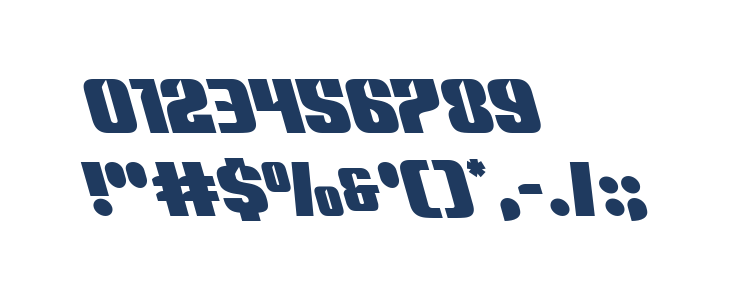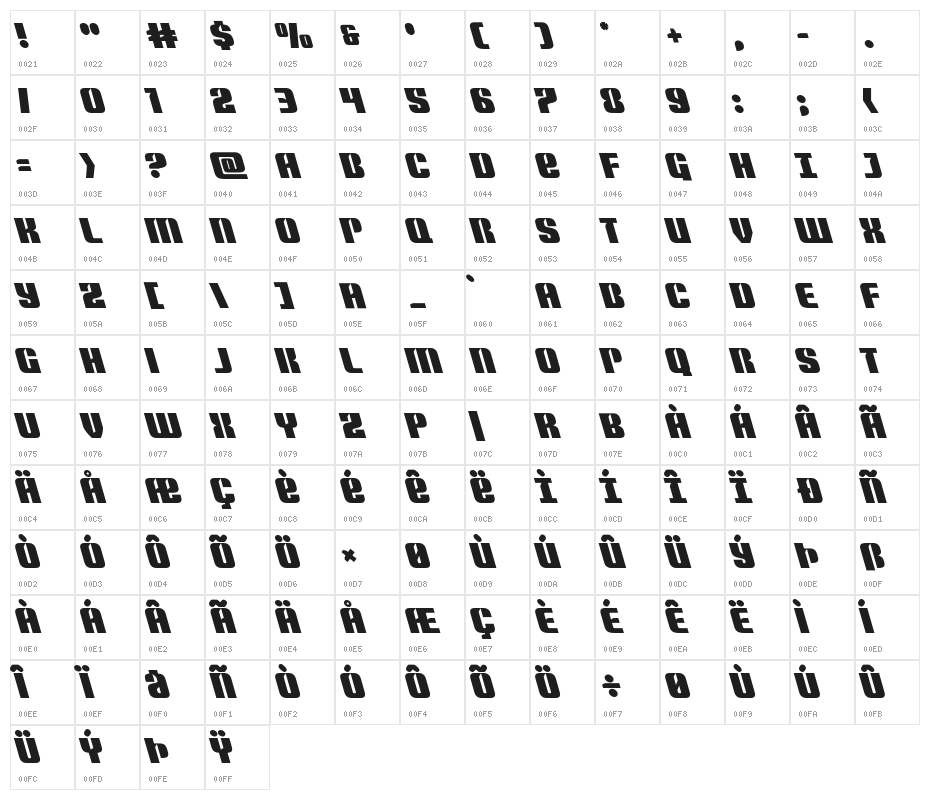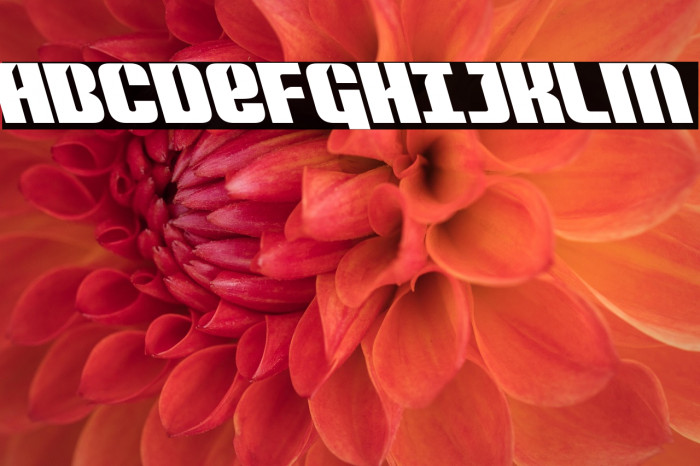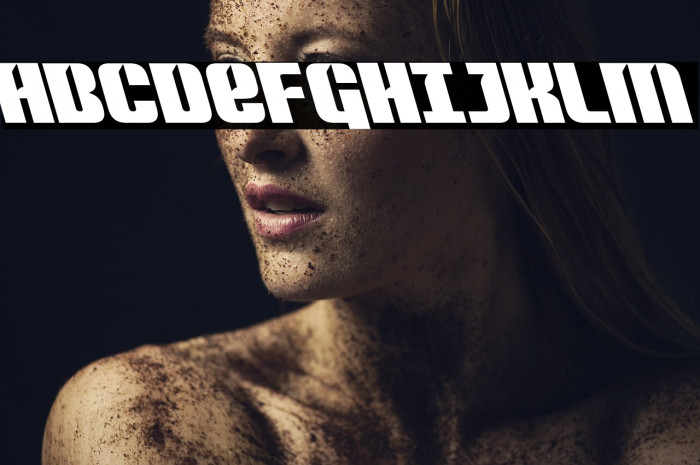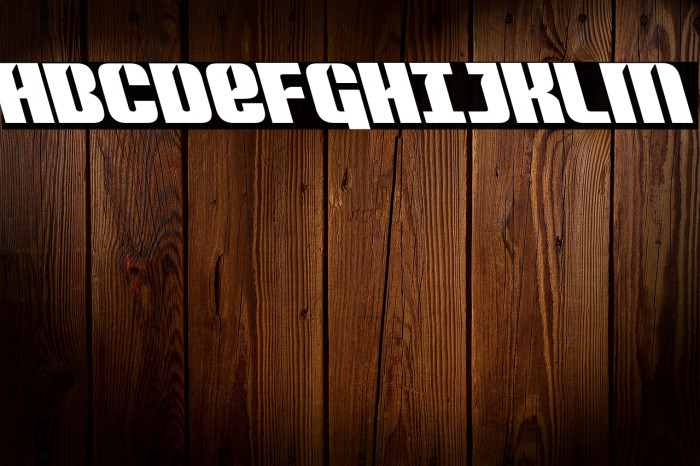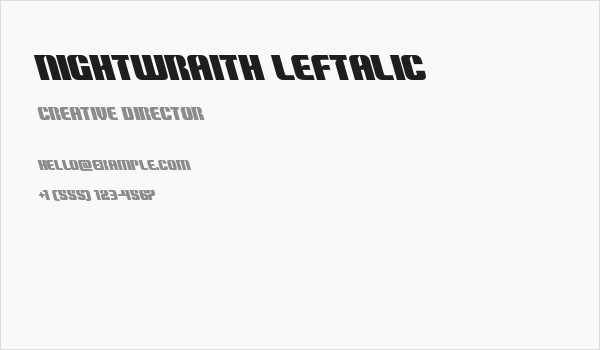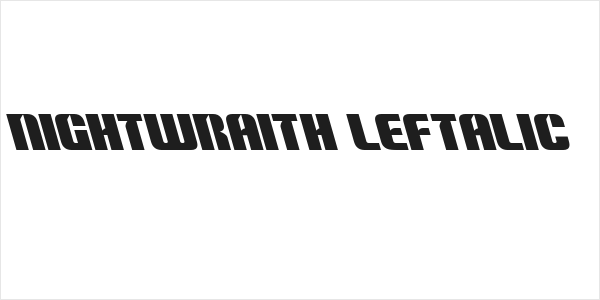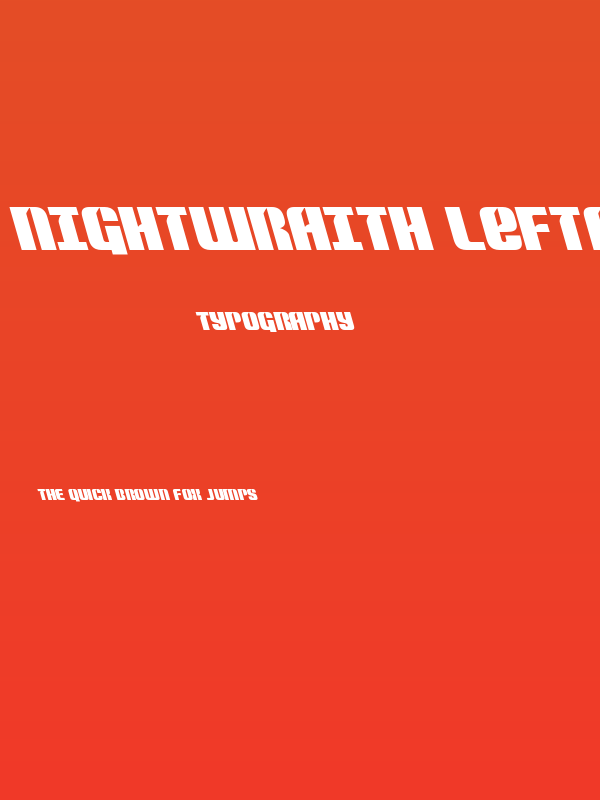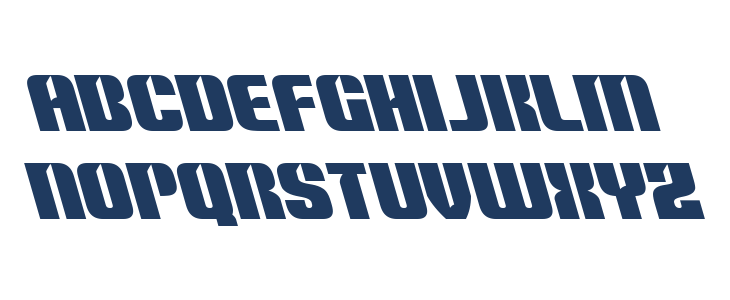
Nightwraith Leftalic Font
Nightwraith Leftalic Description
This font features a bold, angular design with a strong presence. The characters are heavily stylized with sharp edges and a distinct slant to the left, giving it a dynamic and aggressive appearance. The uppercase and lowercase letters maintain a consistent weight, contributing to its boldness. Numbers and special characters follow the same design principles, ensuring uniformity across all glyphs. The font's unique style makes it suitable for impactful designs that require attention-grabbing text.
| Proposed Projects | Ideal for posters, logos, video game titles, and any project needing a bold, dynamic typeface. |